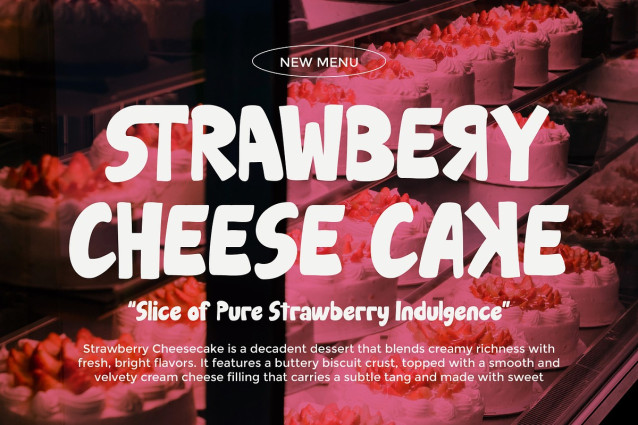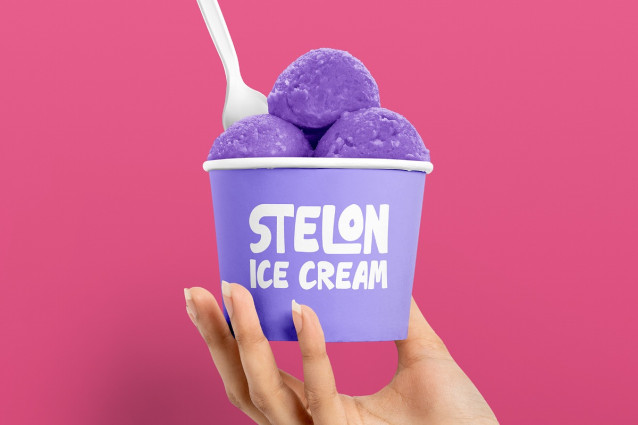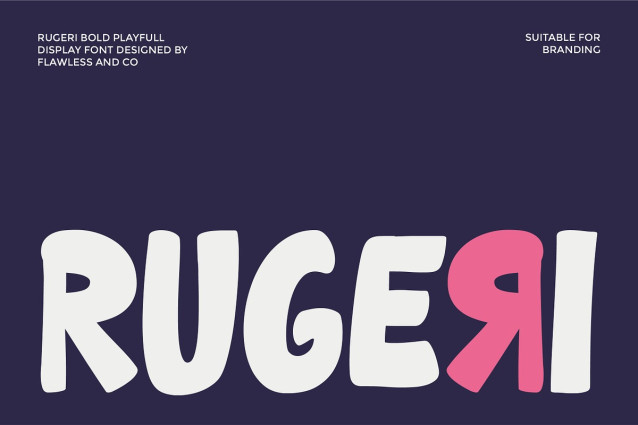
Rugeri Font
Rugeri Font is a bold playful display font designed to make a strong and cheerful visual statement. With its chunky letterforms, rounded edges, and expressive shapes, Rugeri delivers a fun yet confident look that instantly captures attention.